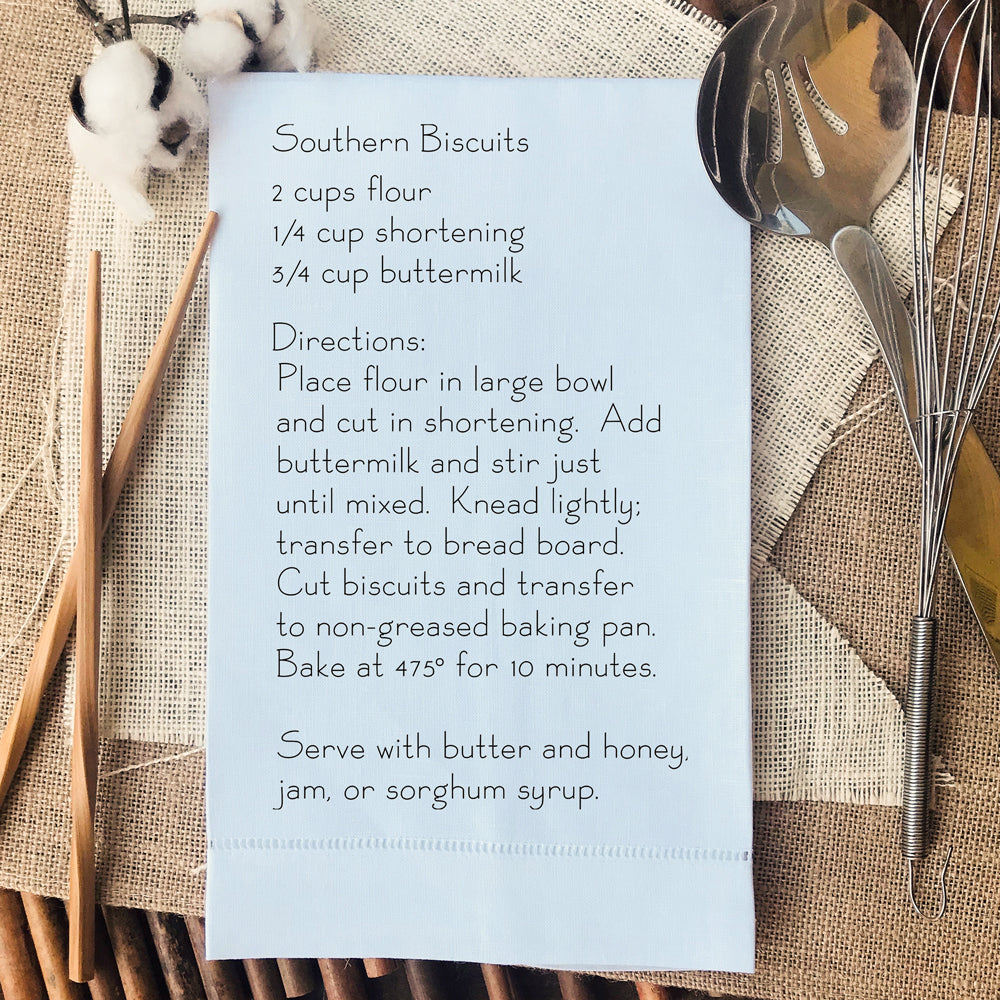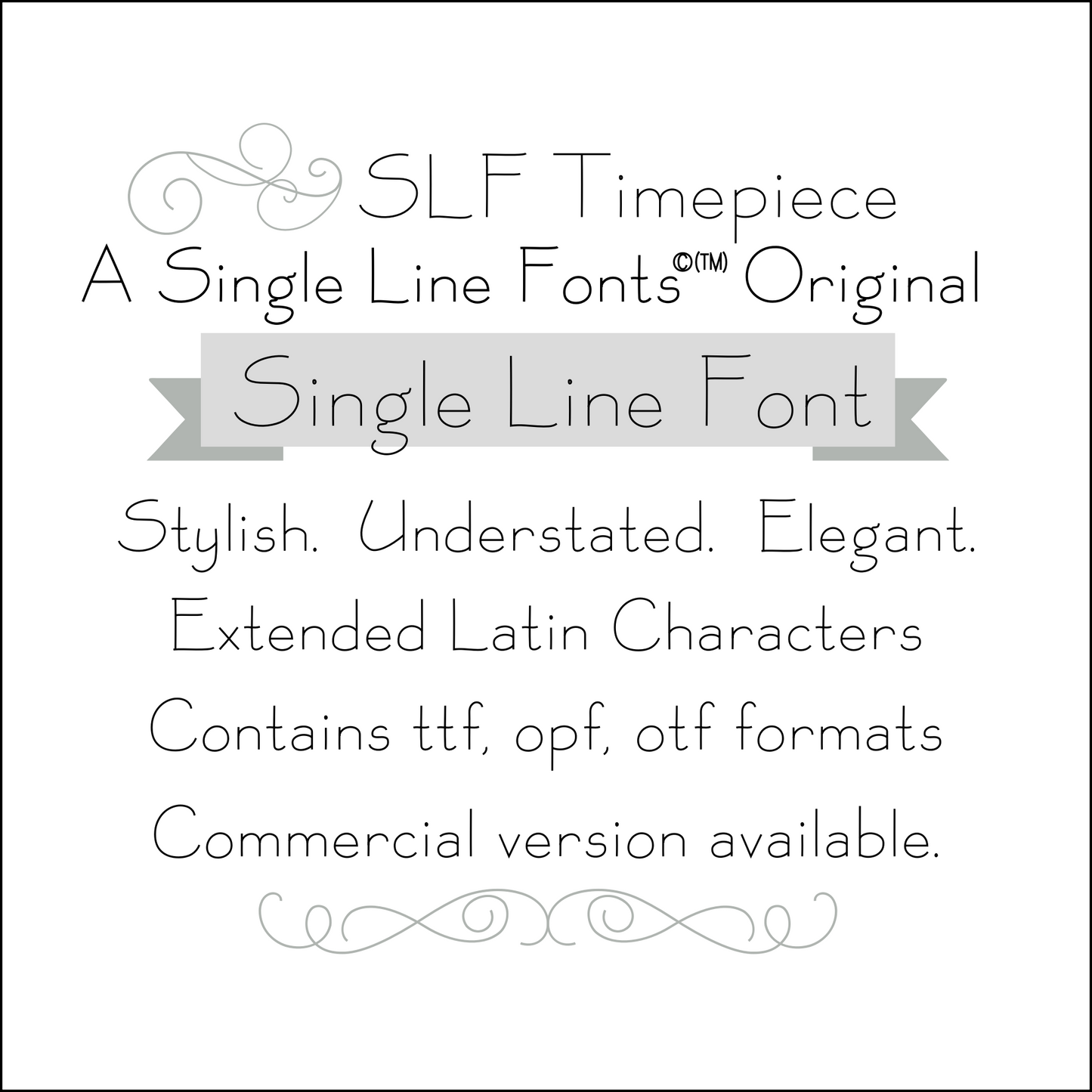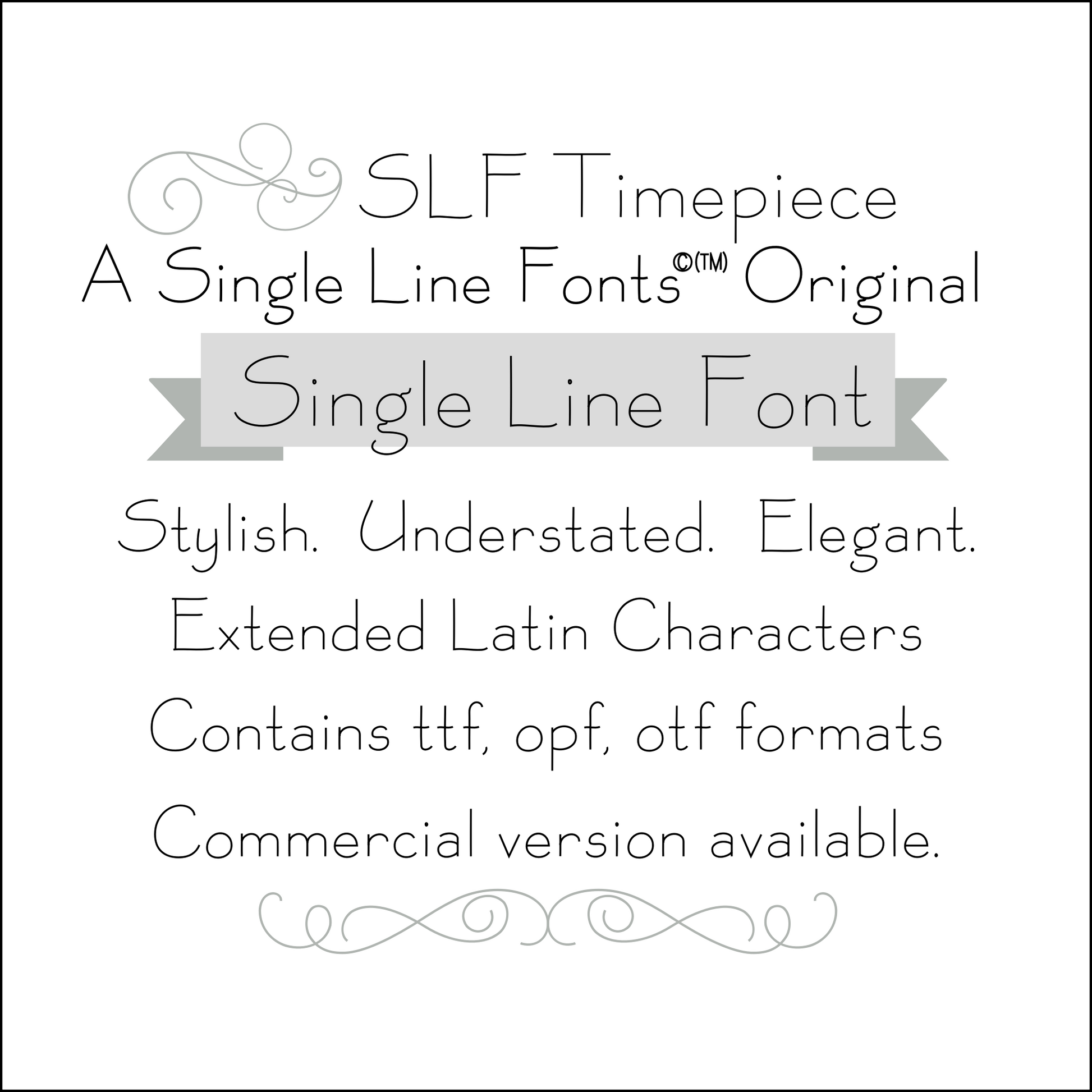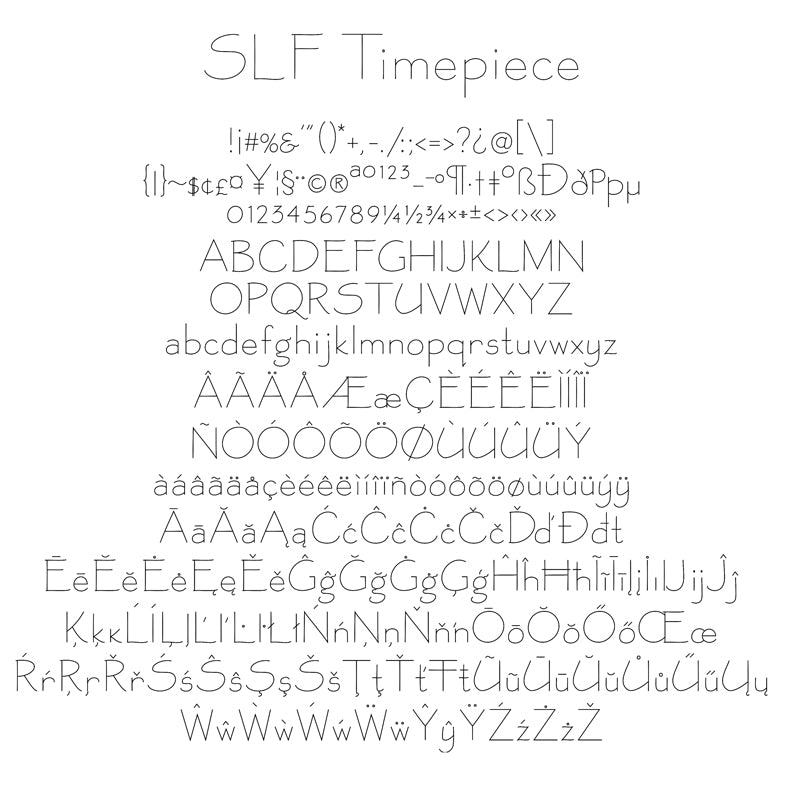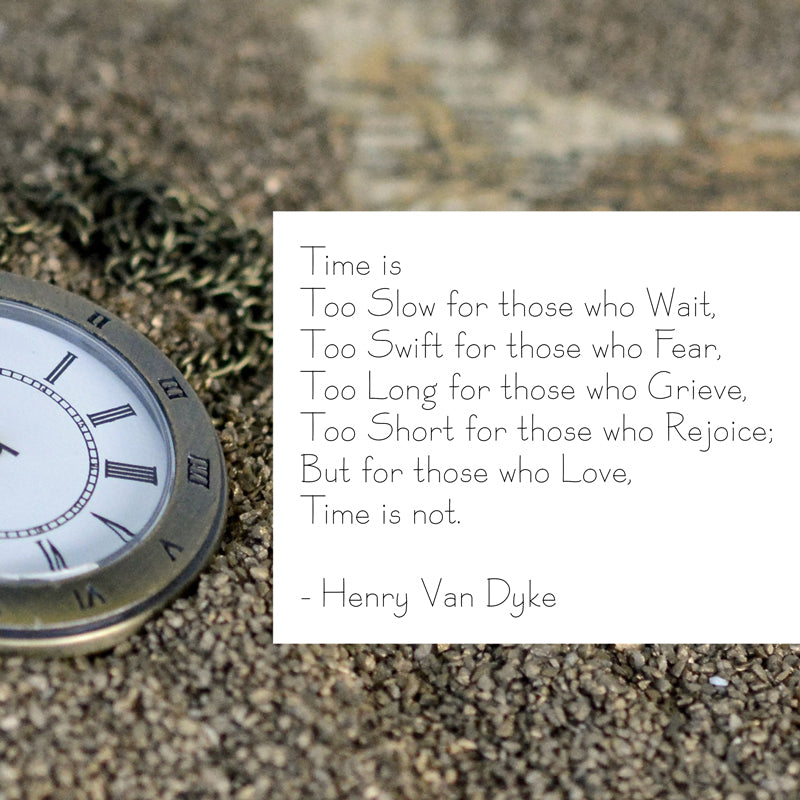
SLF Timepiece – Timeless Single Line Print Font for Engraving & Crafts
SLF Timepiece is a refined single line print font with crisp, timeless letterforms designed for engraving, scoring, CNC routing, and creative craft projects. Its elegant yet minimalist style makes it perfect for watches, keepsakes, classic signage, labels, and personalized gifts.
This monoline font includes a complete character set with uppercase and lowercase letters, numbers, punctuation, symbols, and accented characters for multilingual support.
• Engraved keepsakes, watches, signs, and classic personalized projects